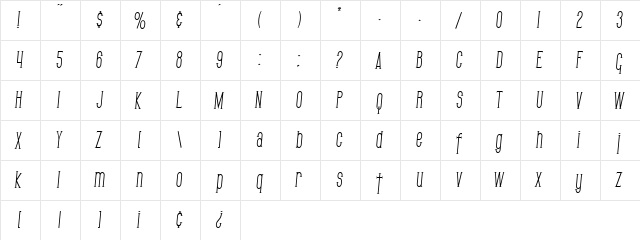
SF Gothican Condensed Italic Font Preview
Design Context for SF Gothican Condensed Typeface
SF Gothican Condensed takes a clean, functional approach — its unadorned letterforms prioritise legibility and work reliably across screen and print environments. The slanted form adds forward momentum and visual energy. Its narrow stance lets it pack a punch even in space-constrained designs.
Font Pairing: Works well alongside a characterful serif or display font that can carry the expressive load while SF Gothican Condensed handles the functional copy.
Pro Tip: Try SF Gothican Condensed in all-caps with moderate tracking for navigation and label copy — it performs well in systematic UI contexts.